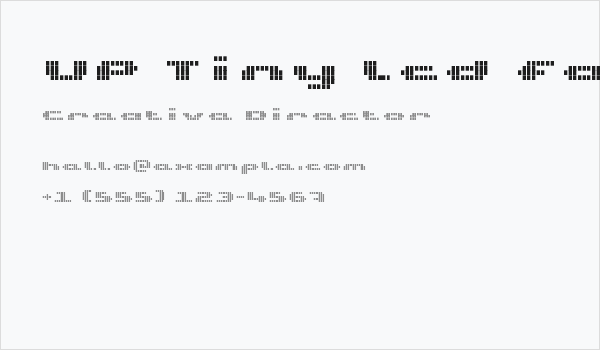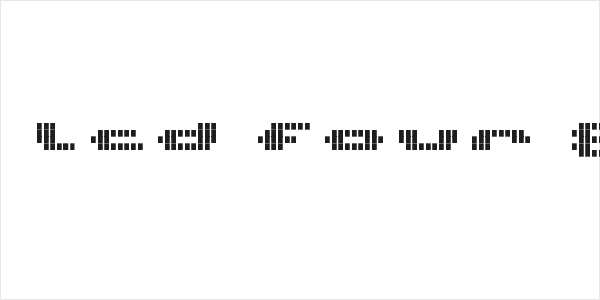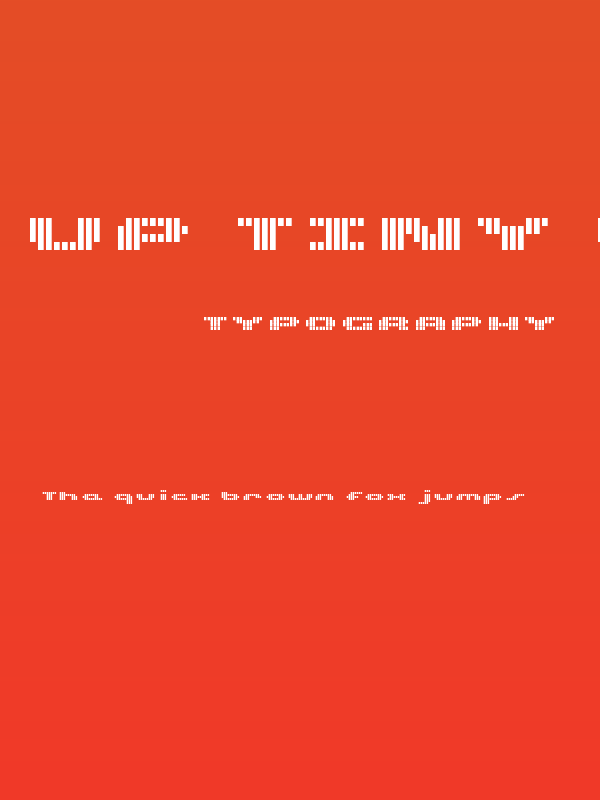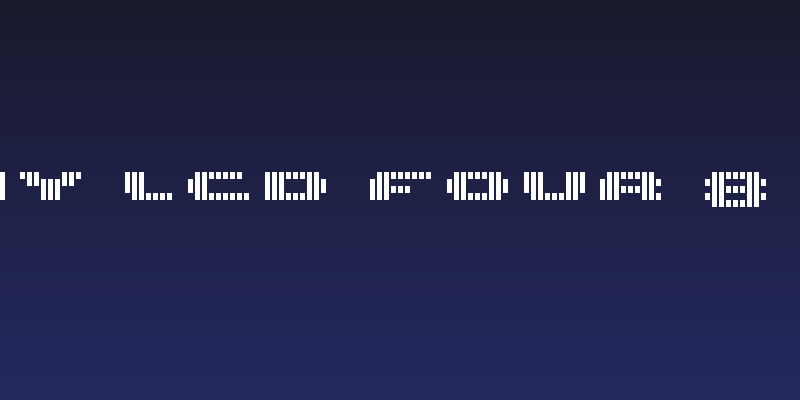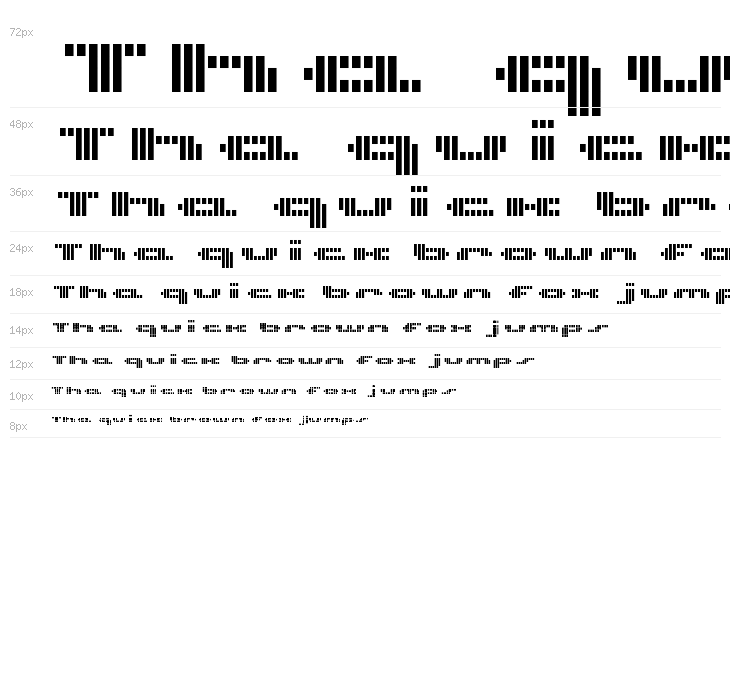
UP Tiny lcd four 8 decoV Font
UP Tiny lcd four 8 decoV Description
This font features a distinctive pixelated style reminiscent of early digital displays and retro gaming aesthetics. Each character is composed of small, uniform blocks that create a grid-like appearance, giving it a unique, tech-inspired look. The uppercase and lowercase letters maintain a consistent height, while the numbers and special characters follow the same pixelated pattern. This design choice evokes a sense of nostalgia and is ideal for projects that aim to capture a vintage digital feel. The font's geometric structure ensures readability while maintaining its decorative appeal.
| Use Case | Logos, Headlines, Digital Art |
| Proposed Projects | Ideal for retro gaming designs, tech-themed posters, digital art projects, and any creative work that seeks a vintage digital aesthetic. |